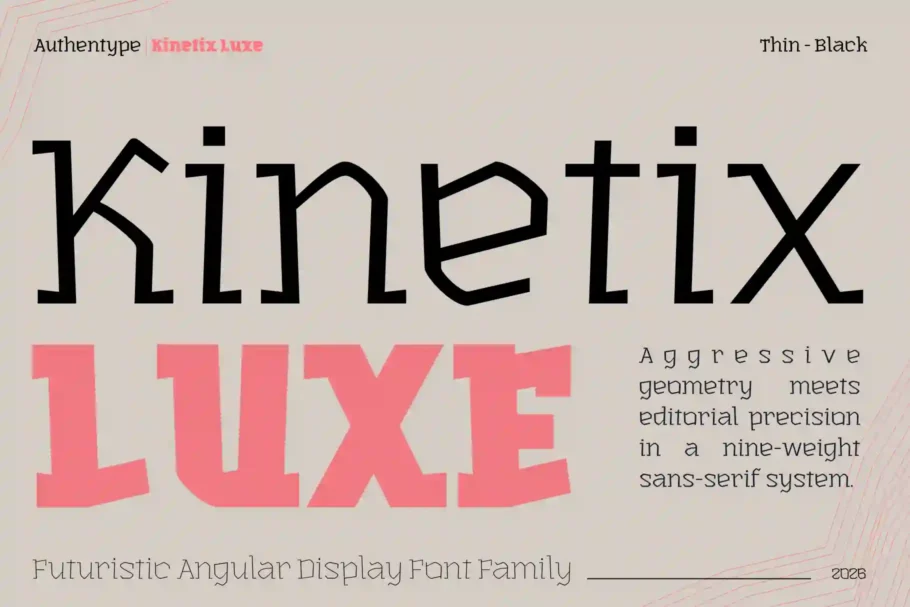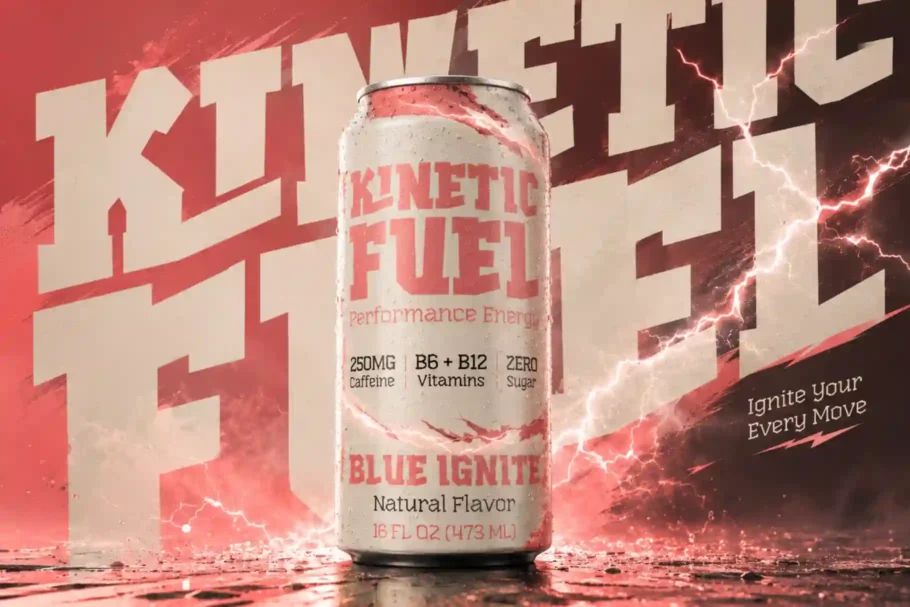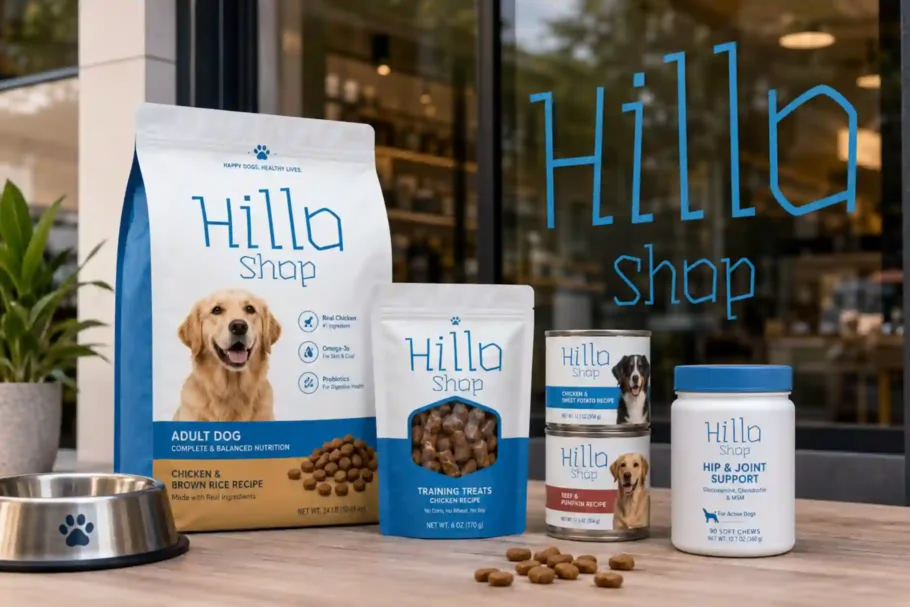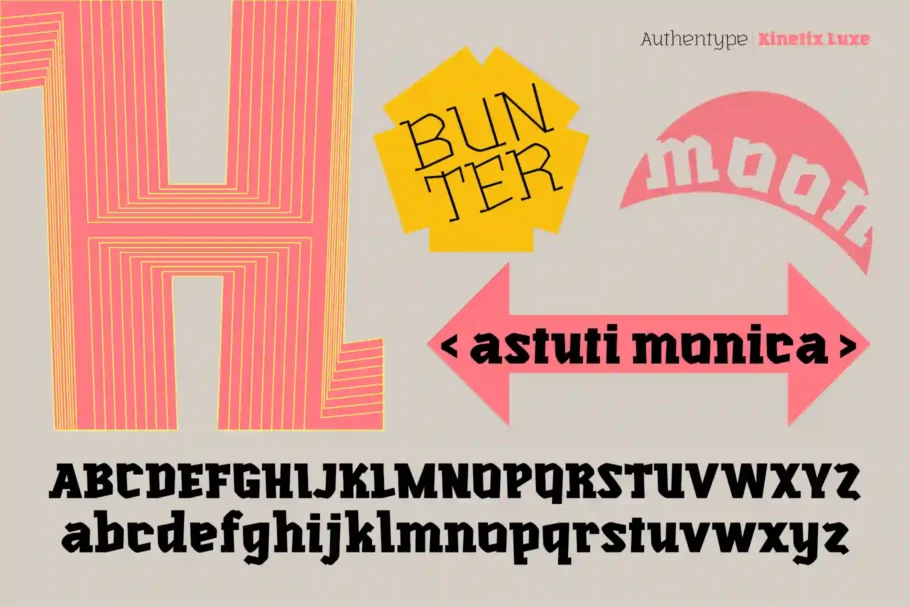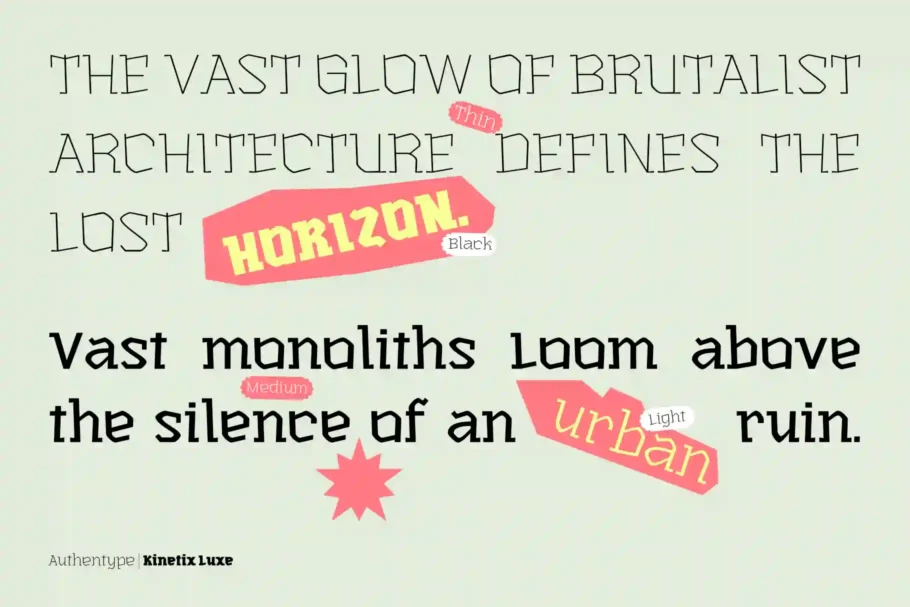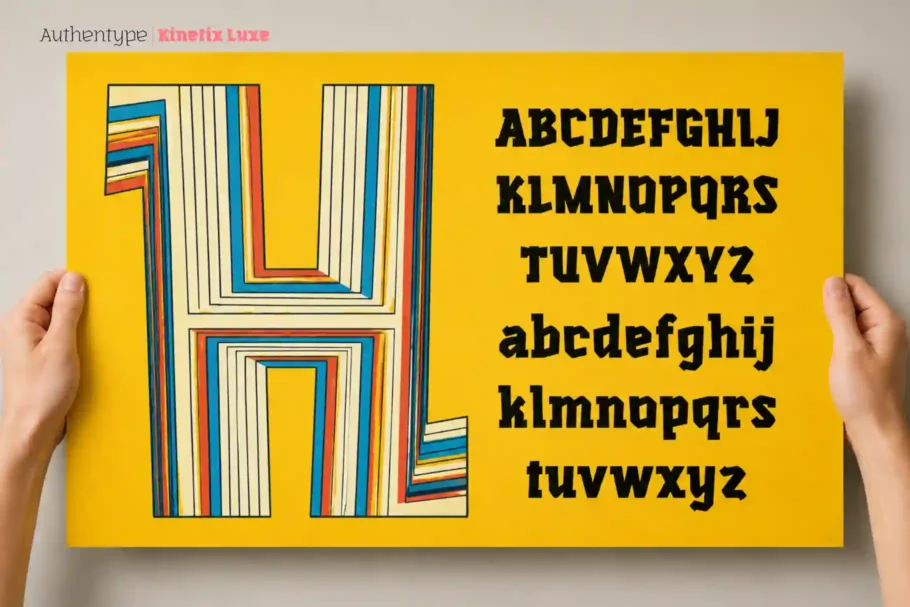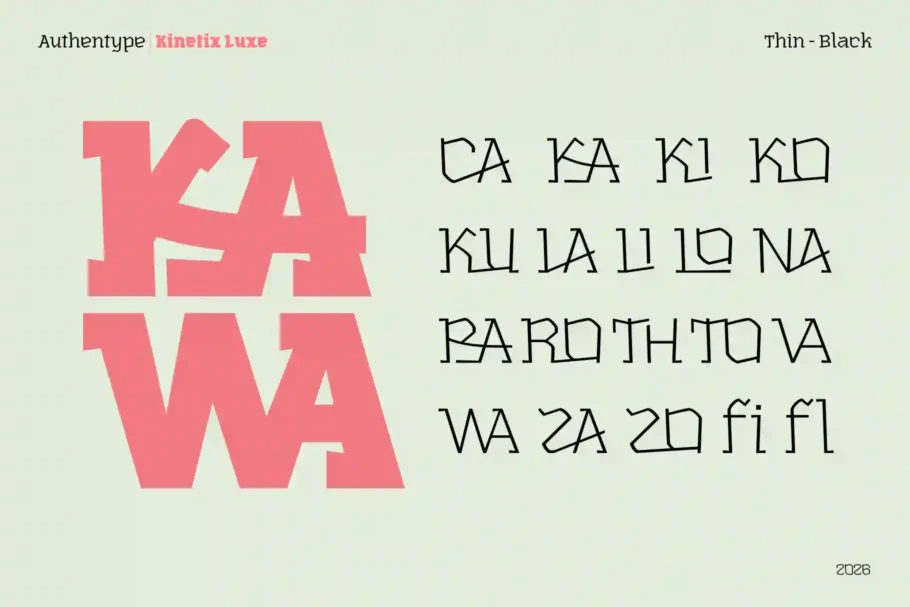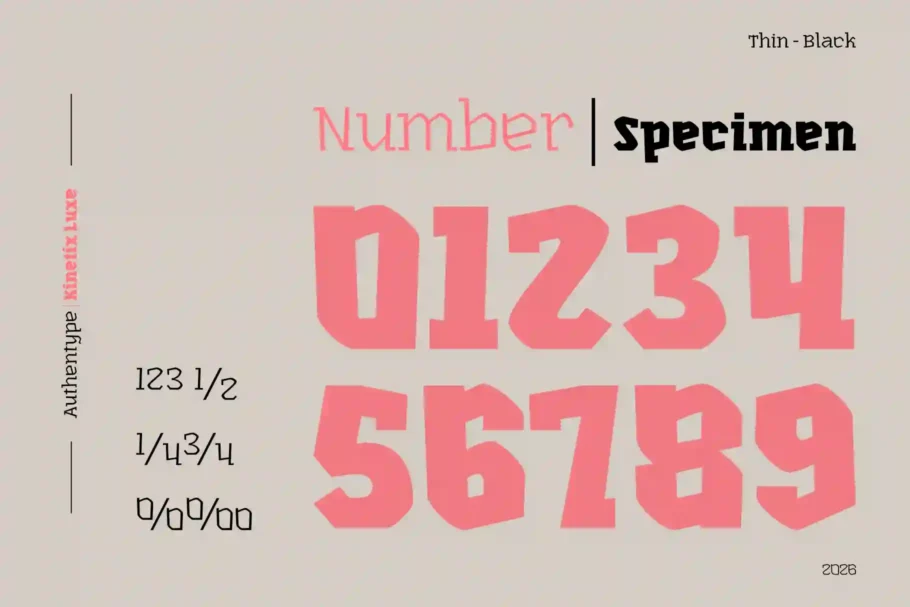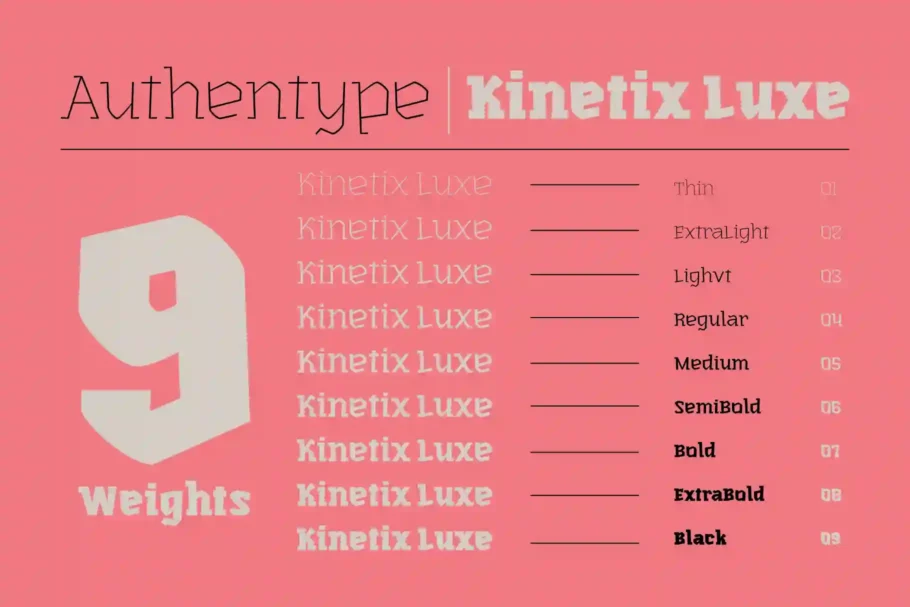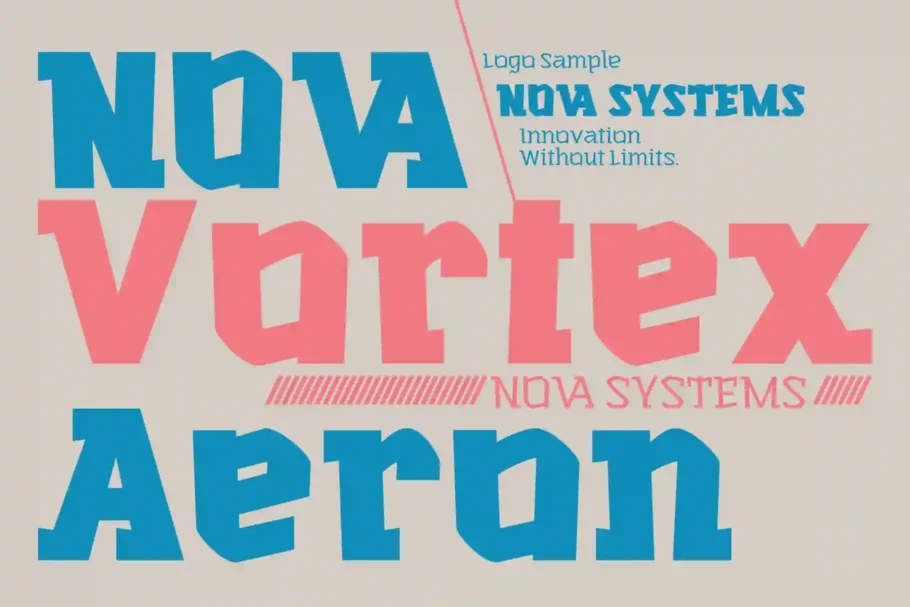
Kinetix Luxe
Kinetix Luxe is a nine-weight futuristic display font family built for tech branding, automotive identities, bold headlines, and digital campaigns.
The intersection of mechanical precision and high-density legibility.
Kinetix Luxe is a precision-engineered display family designed by Authentype, spanning nine weights from Thin to Black. Technical analysis reveals a massive x-height to cap-height ratio of 0.857, categorized as High x-Height, which optimizes the typeface for maximum screen legibility and aggressive display impact. The anatomy is characterized by sharp, angular terminals and a ‘Traditional Curved’ vector geometry style that maintains a classical 0.75 capital width-to-height ratio. Structurally, the font utilizes 1050 units-per-em, providing refined control over its aggressive slab-influenced terminals and open-counter bowls. With built-in support for discretionary ligatures (dlig) and fractions (frac), it offers functional versatility for tech-driven branding, automotive identity, and brutalist web headers where textural density is paramount.